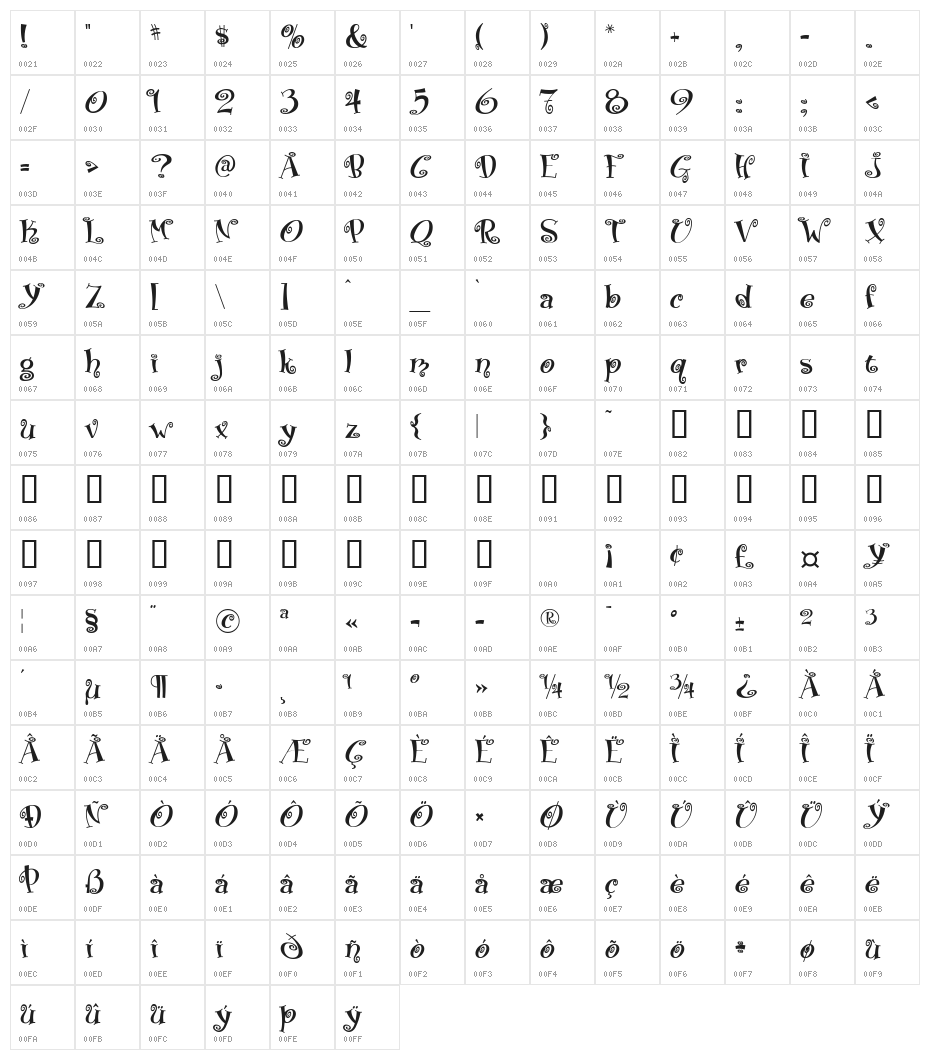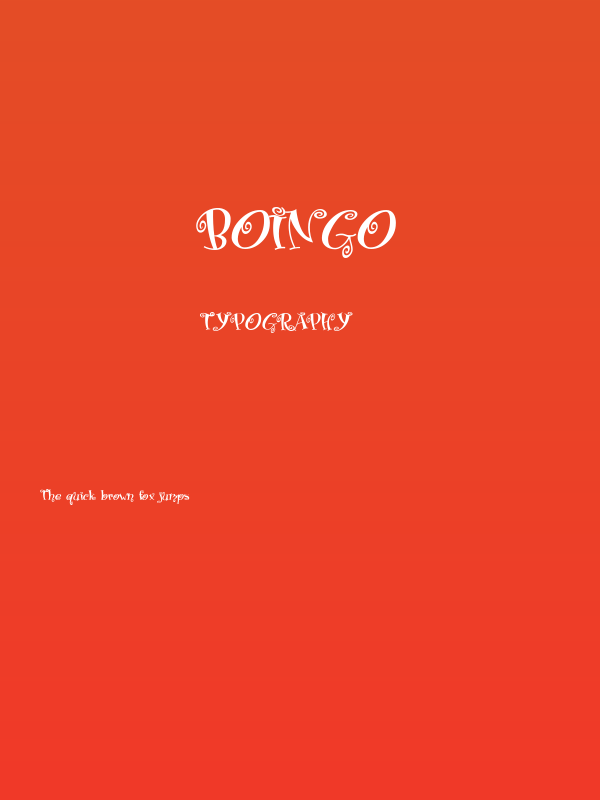
Boingo Font
Boingo Description
This whimsical and playful font features exaggerated curls and swirls, giving it a lively and animated appearance. Each character is uniquely crafted with decorative elements that make it stand out, perfect for capturing attention. The uppercase letters are bold and dynamic, while the lowercase letters maintain a consistent style with a touch of elegance. Numbers and special characters follow the same playful theme, ensuring a cohesive look across all text. The font's unique style makes it ideal for creative projects where a fun and engaging typeface is desired.
| Proposed Projects | Ideal for children's book covers, party invitations, playful branding, and creative posters. |